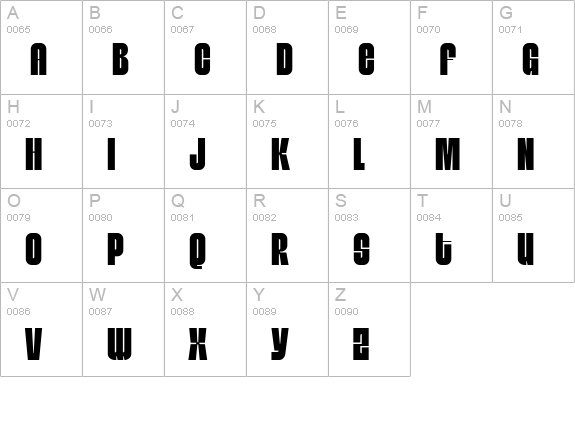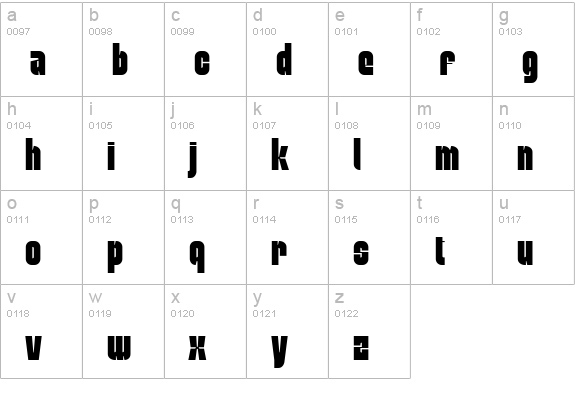
MobleySans-Condensed Font Details
MobleySans-Condensed is a distinctive, condensed-width variant in the MobleySans typeface family \xE2\x80\x94 well suited to design and typography projects.
MobleySans-Condensed is a modern and sleek sans-serif font that exudes professionalism and sophistication. Its condensed design allows for efficient use of space while maintaining excellent readability. With clean lines and a contemporary aesthetic, this font is perfect for a wide range of design projects including branding, headlines, and product packaging. What makes MobleySans-Condensed even more appealing is that it is available for free download at FontsMarket.com. Whether you're a graphic designer, web developer, or simply a typography enthusiast, you can easily access this versatile font and enhance your projects with its stylish and refined appearance. Don't miss out on the opportunity to elevate your designs with MobleySans-Condensed – download it today and let your creativity shine!